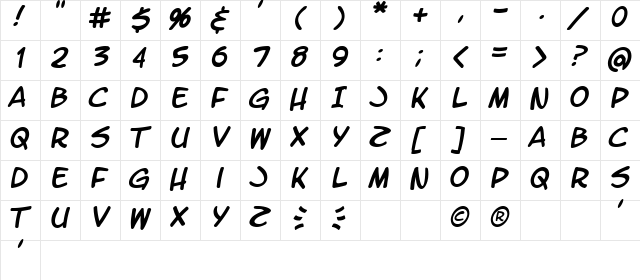
LetterOMatic! Italic
Design Context for LetterOMatic! Typeface
LetterOMatic! is a composed and adaptable typeface that performs quietly and consistently across a wide range of design contexts. The slanted form adds forward momentum and visual energy.
Pro Tip: Use LetterOMatic! for emphasis, pull quotes, and subheadings where its slanted energy can add rhythm to the layout.